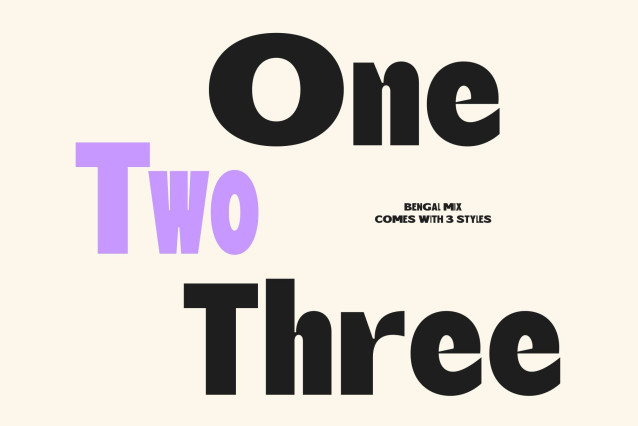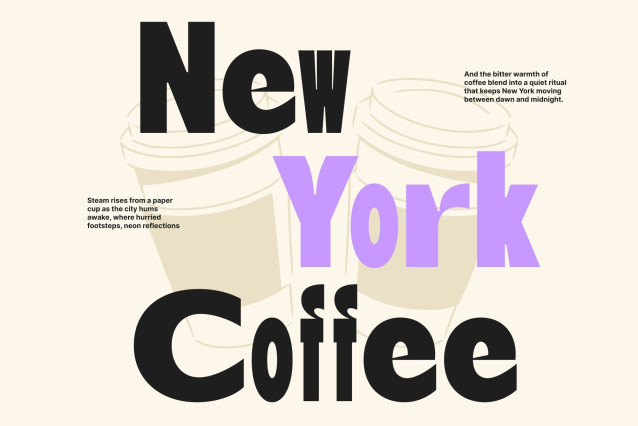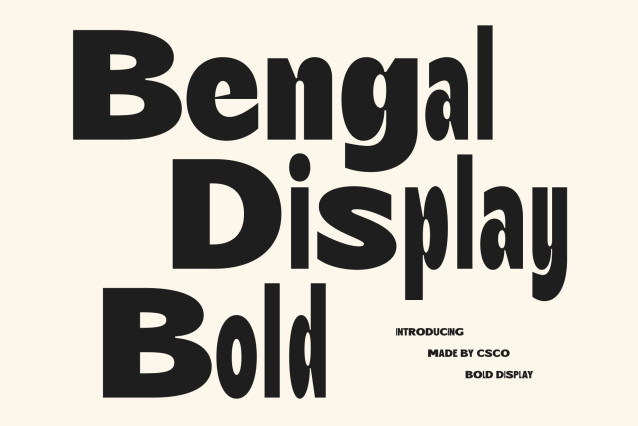
Retro Bold Sans Serif: A Vibrant Revival of Vintage Energy
Retro Bold Sans with Mixed Weight Style
This is a bold sans serif font infused with nostalgic charm and a modern mixed-weight twist. Inspired by retro typography, this font captures the lively spirit of vintage design while introducing a fresh contemporary rhythm. Its strong structure and playful personality make every word feel expressive, eye-catching, and full of character.
A Distinctive Blend of Bold and Regular Characters
What makes Bengal Mix truly unique is its creative mix of bold and regular letterforms. This thoughtful combination produces an energetic visual contrast that feels dynamic and engaging. The variation in weight adds movement and personality, allowing text to stand out with a vibrant retro attitude.